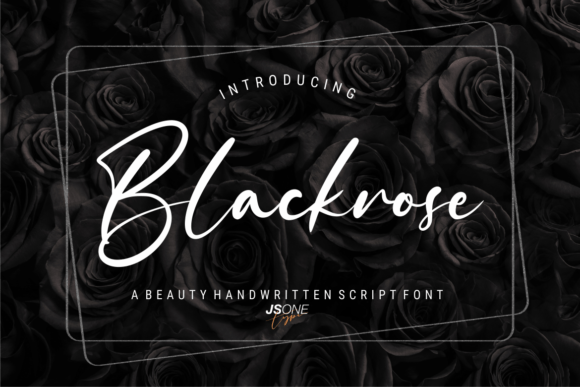
Journey into the realm of culinary charm with Blackrose Font, a delectable handwritten masterpiece crafted to tantalize your taste buds and ignite your creative senses. This elegant script font dances across the page like a ballerina, its graceful curves and delicate strokes adding a touch of sophistication to any food-related design.
Indulge in the visual feast that awaits you as Blackrose Font transforms your culinary creations into works of art. Whether you're designing menus that entice the senses, crafting social media posts that make mouths water, or creating packaging that demands attention, Blackrose Font is your secret ingredient for success.
Picture this: a menu adorned with Blackrose Font, its swirling letters inviting diners to embark on a culinary adventure. Each dish becomes a masterpiece, its name elegantly displayed in a font that speaks of quality and artistry. As your customers peruse the menu, they can't help but feel a sense of anticipation, their taste buds tingling in eager expectation.
Transport your audience to a world of culinary delight with Blackrose Font. Its versatility knows no bounds, effortlessly adapting to a myriad of food-related designs. From tantalizing recipe books that inspire home cooks to create mouthwatering dishes to eye-catching food blogs that showcase your culinary expertise, Blackrose Font is the perfect companion for any food enthusiast.
Unleash your creativity and watch as Blackrose Font elevates your designs to new heights. Whether you're a seasoned designer or just starting out, this font is your gateway to creating stunning visuals that will leave a lasting impression. Its intuitive nature makes it easy to use, allowing you to focus on your passion for food and let your creativity shine through.
Don't settle for ordinary fonts that blend into the background. Embrace the uniqueness and charm of Blackrose Font, the font that transforms your food-related designs into culinary masterpieces. Its captivating curves and delicate strokes will leave your audience craving more.